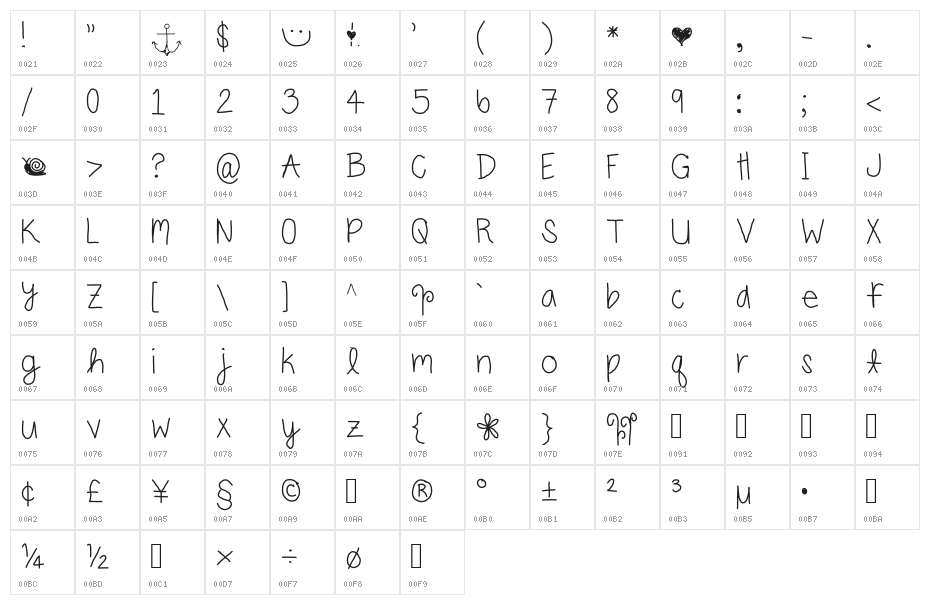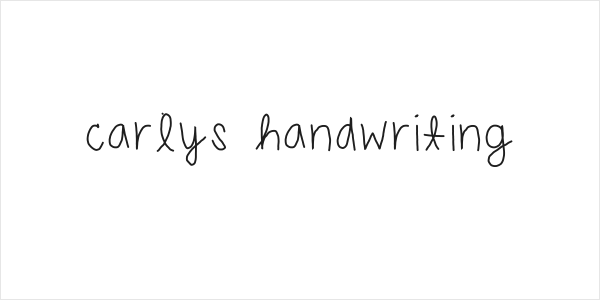
carlys handwriting Font
carlys handwriting Description
This font exudes a playful and casual handwritten style, characterized by its irregular and organic letterforms. Each character appears as if it was drawn with a felt-tip pen, giving it a personal and informal touch. The uppercase and lowercase letters maintain a consistent flow, while the numerals and special characters add a whimsical flair. The strokes are uneven, with a slight wobble that enhances the handwritten feel. This font is perfect for projects that require a friendly and approachable aesthetic, such as personal notes, invitations, or children's book illustrations.
| Use Case | Headlines, Invitations, Personal notes |
| Proposed Projects | Ideal for personal notes, invitations, children's book illustrations, and casual branding. |